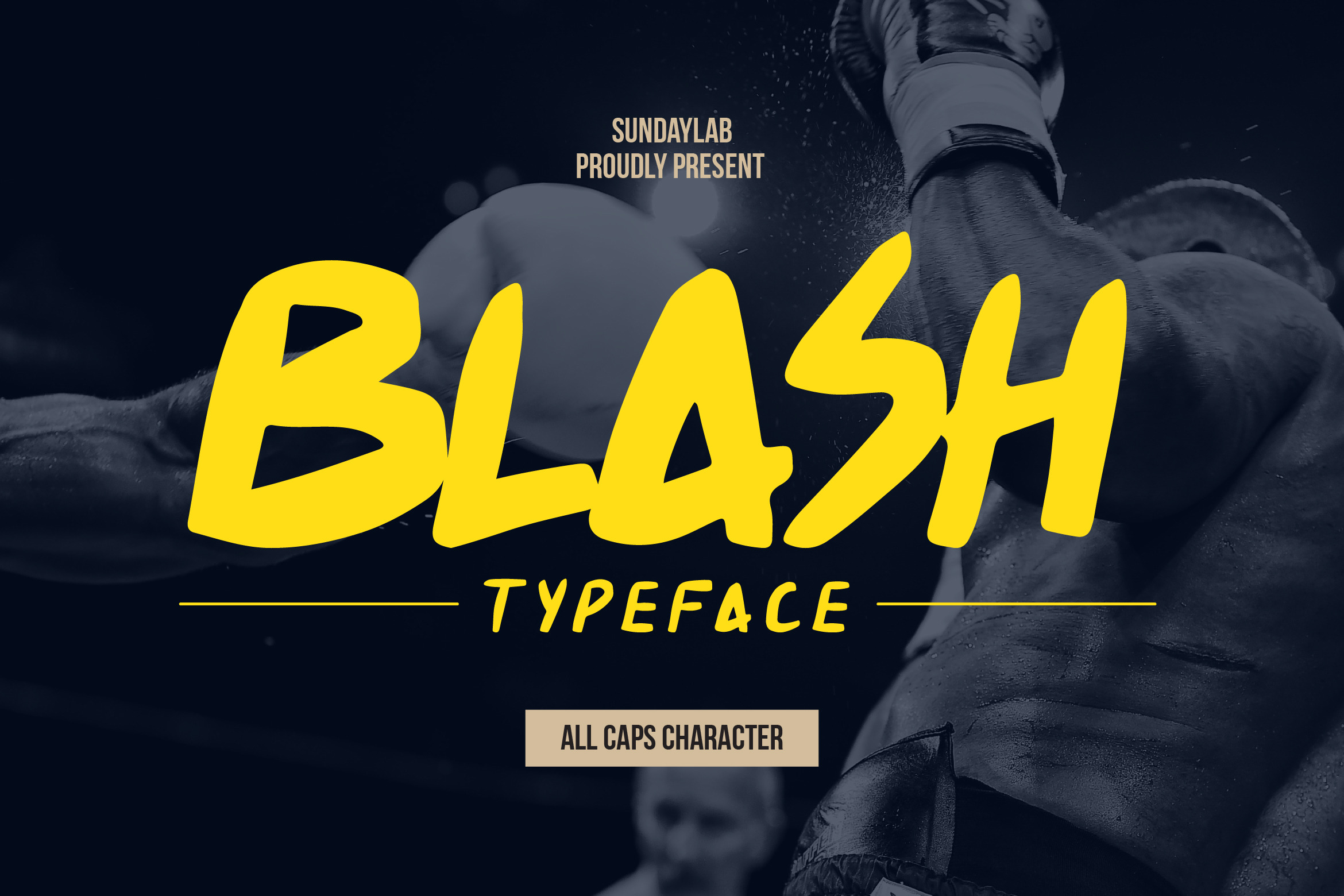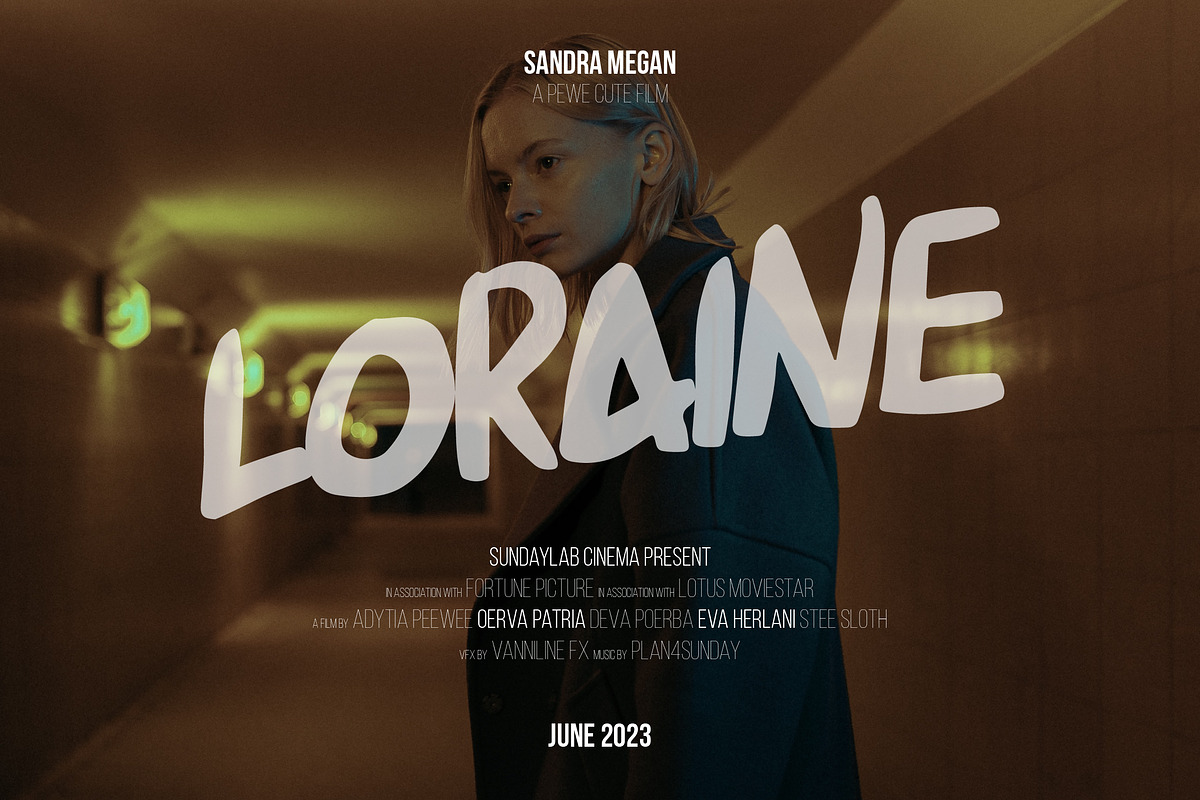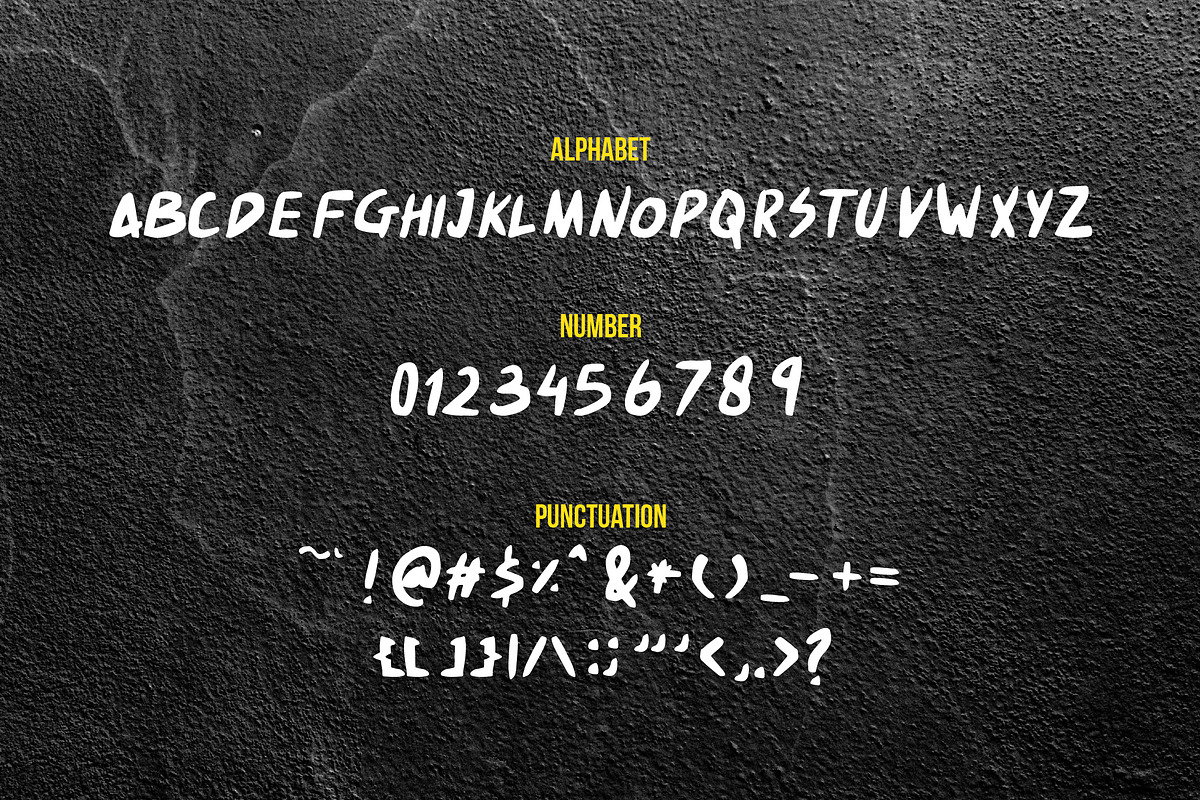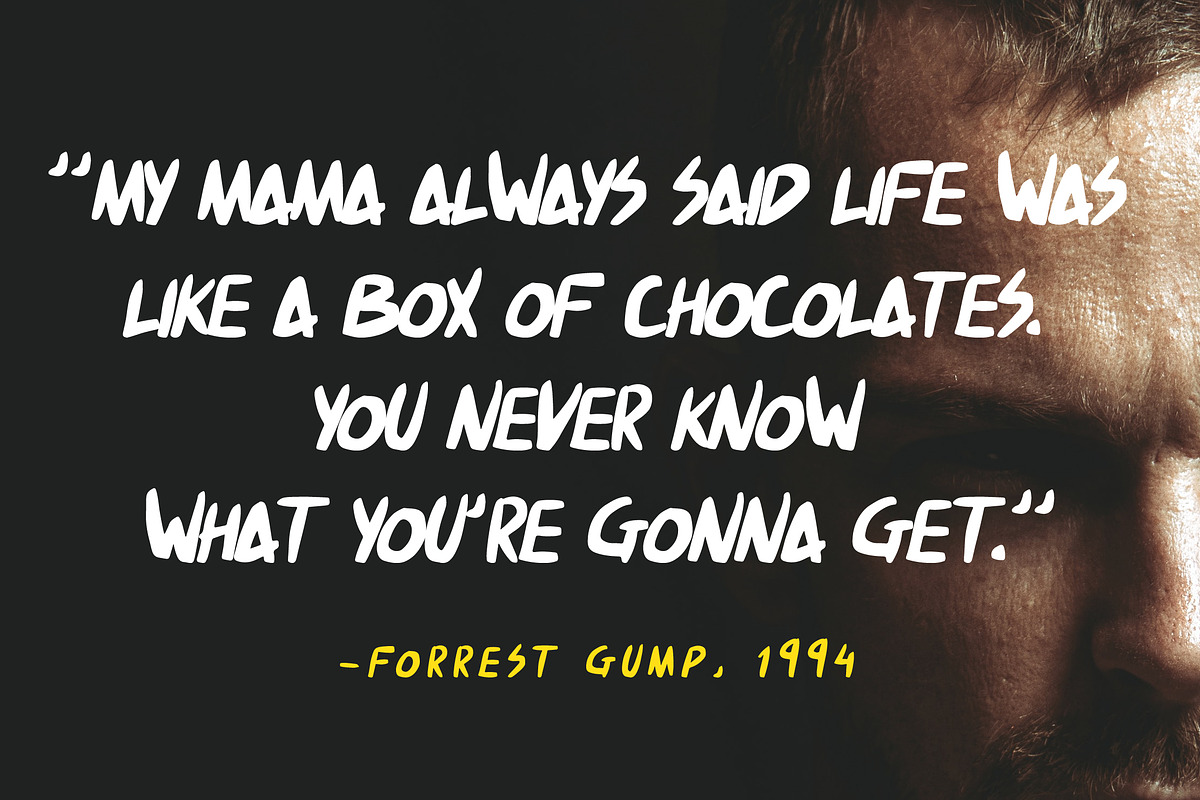
Blash Typeface
Introducing
Blash Typeface
Blash Typeface is a display font that can help show a message in the design you make. It is suitable for movie poster, title, or another media.